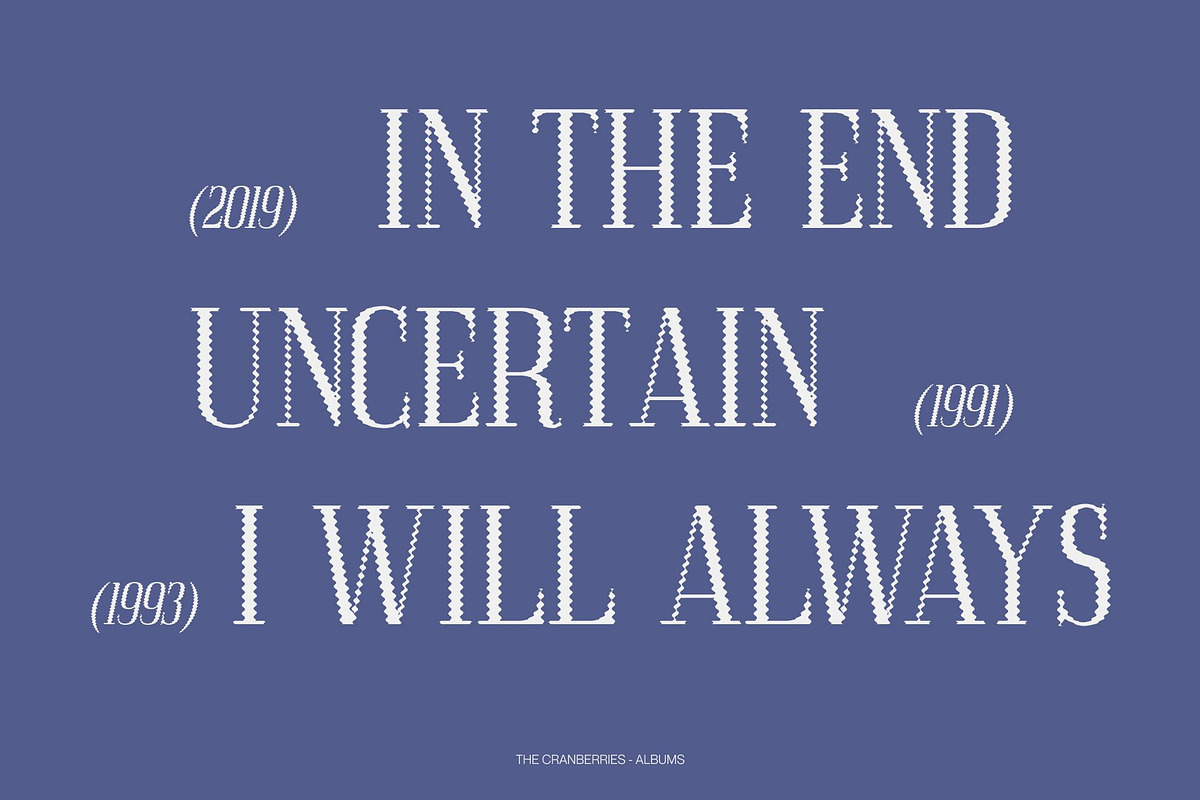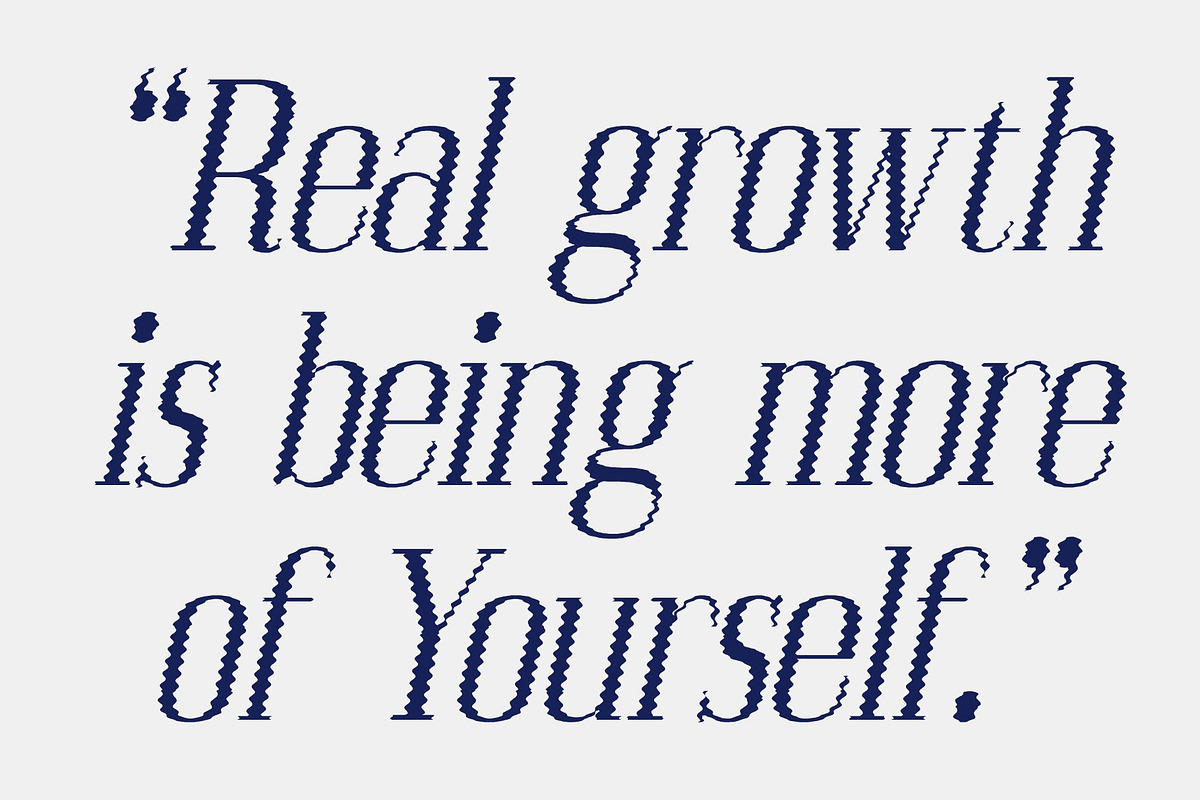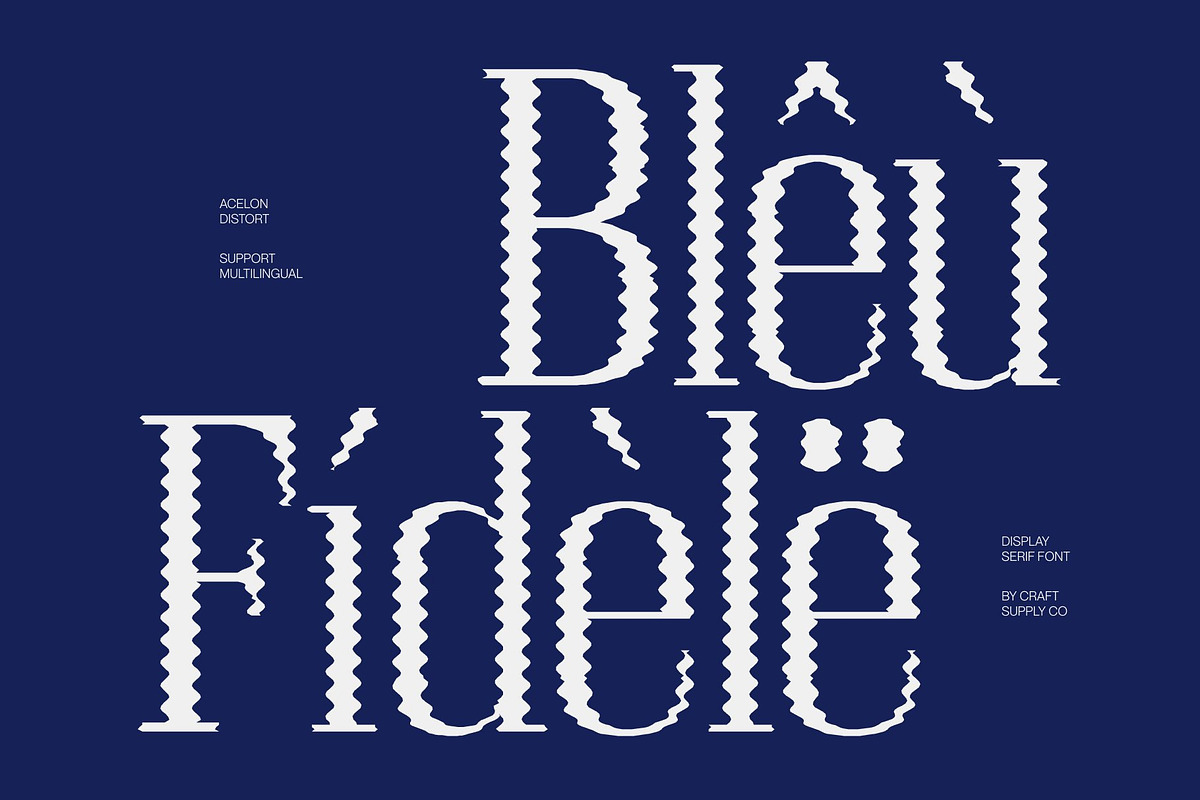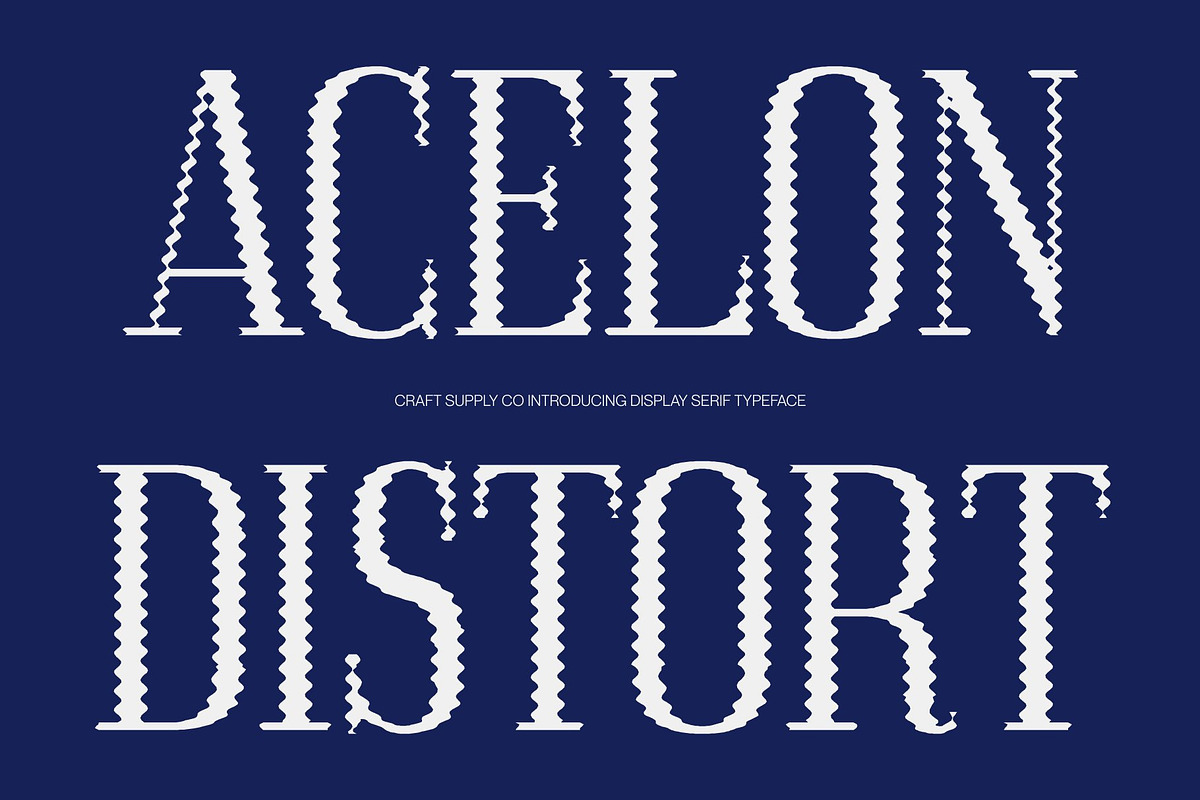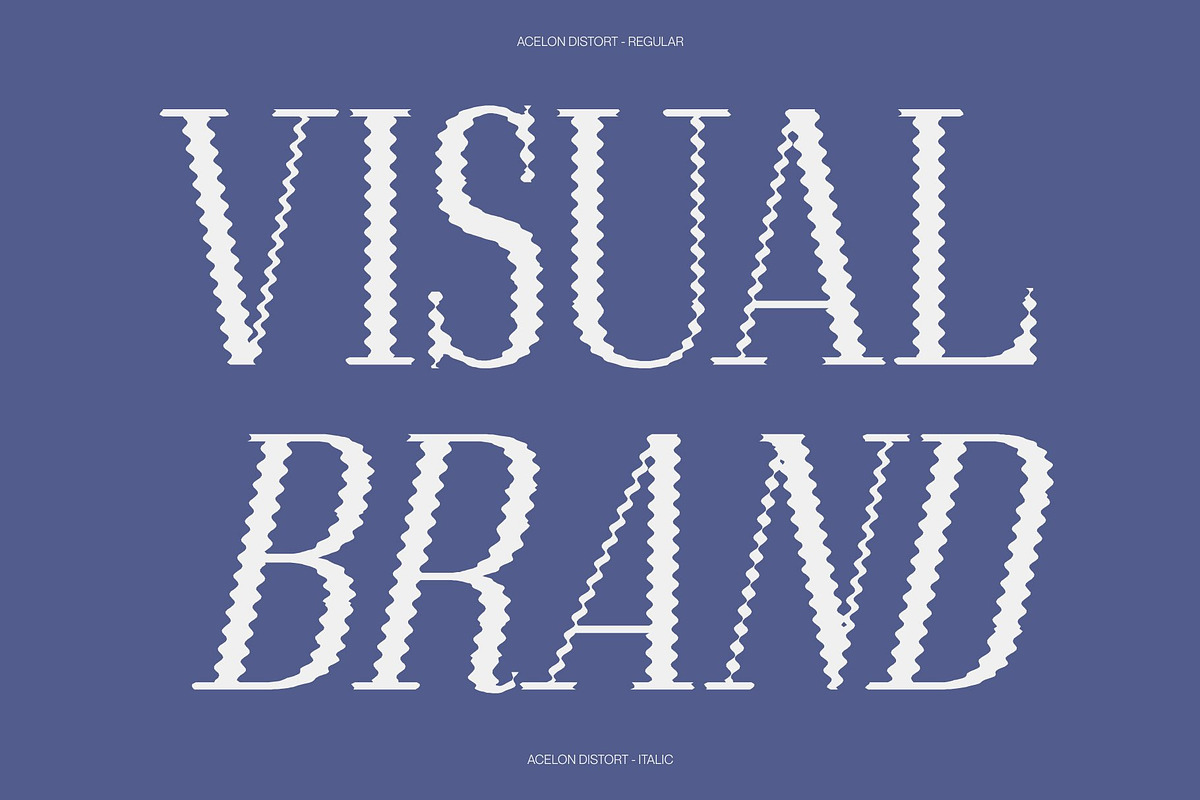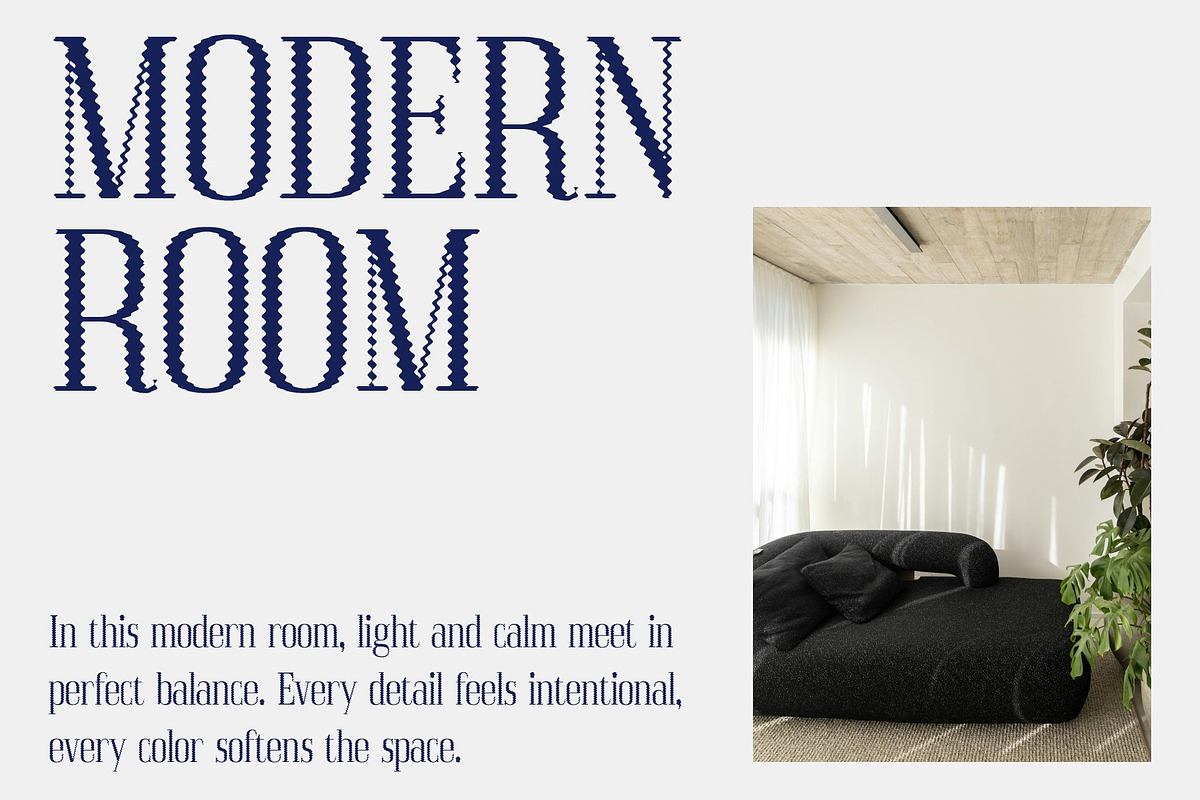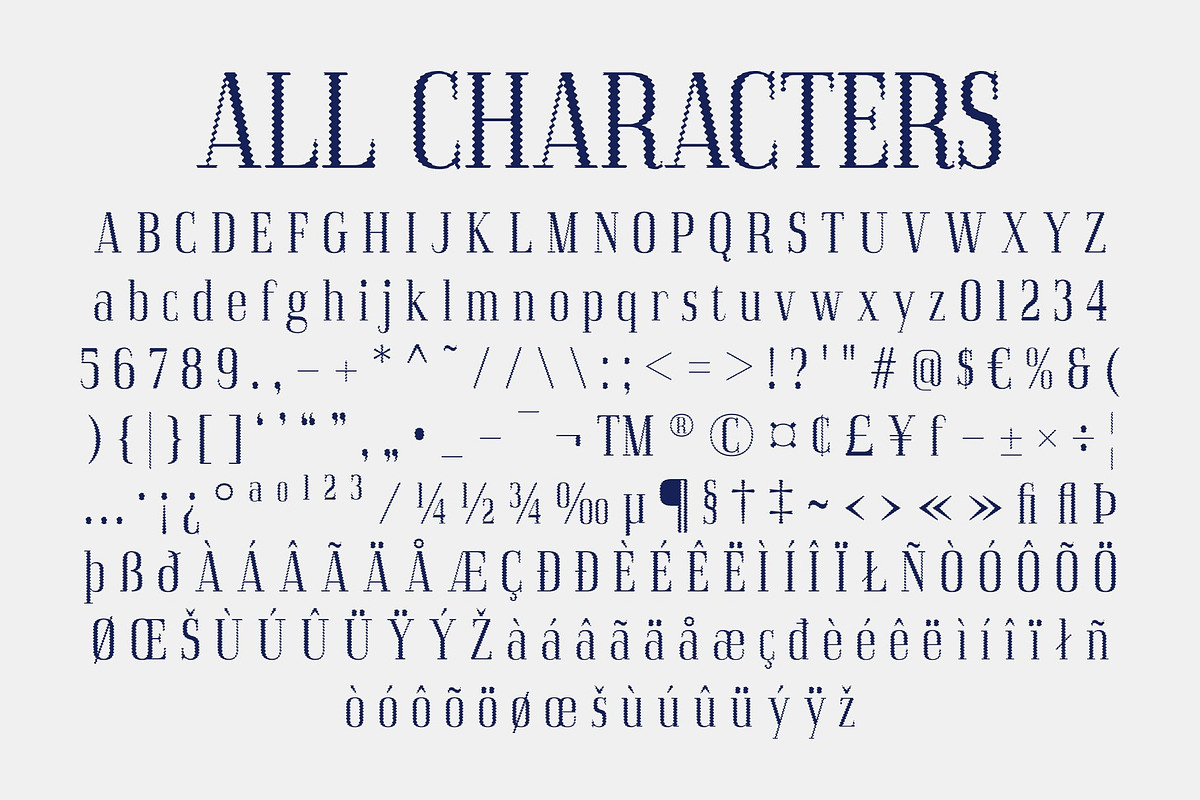
Acelon Distort
Acelon Distort – Condensed Serif Font: Where Retro Elegance Meets Organic Distortion
Classic Retro Forms with Refined Sophistication This is a condensed serif font that combines classic retro elegance with a sleek and contemporary presentation. Its narrow proportions and graceful serif details create a sophisticated visual identity filled with nostalgia, charm, and timeless style.
Distort Effect with Gentle Organic Motion This font features fluid organic contours along the letter edges that create a subtle melting effect. This expressive detailing introduces movement, softness, and artistic visual depth while preserving the font’s elegant serif structure. The result is a dynamic and visually engaging appearance that feels both classic and contemporary.
Vintage Charm with Artistic Character This font delivers a typographic identity that feels nostalgic, stylish, and creatively expressive. Its condensed forms combined with flowing contours evoke vintage print culture, classic editorial aesthetics, and modern artistic experimentation, creating a look that is both distinctive and memorable.
Perfect for Branding, Packaging, and Editorial Design This is ideal for vintage-themed projects, branding, packaging, editorial design, magazine layouts, product labels, posters, invitations, and premium promotional materials. Its fluid distorted serif forms make it perfect for logos, headlines, visual identities, and creative compositions that seek a nostalgic touch while maintaining a stylish and sophisticated appearance.
Acelon Distort Regular
Acelon Distort Italic